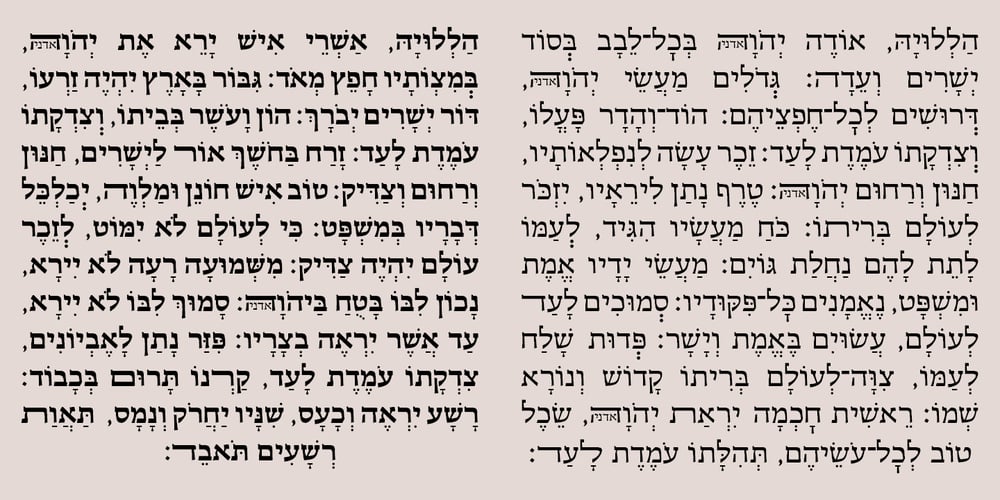
Hebrew Esther Std
Hebrew Esther Std font
Hebrew Esther Std Font Family was designed by Sami Artur Mandelbaum and published by Samtype. Hebrew Esther Std contains 3 styles and family package options. This is a revival of a modern classic, exceptionally good for books and small texts.